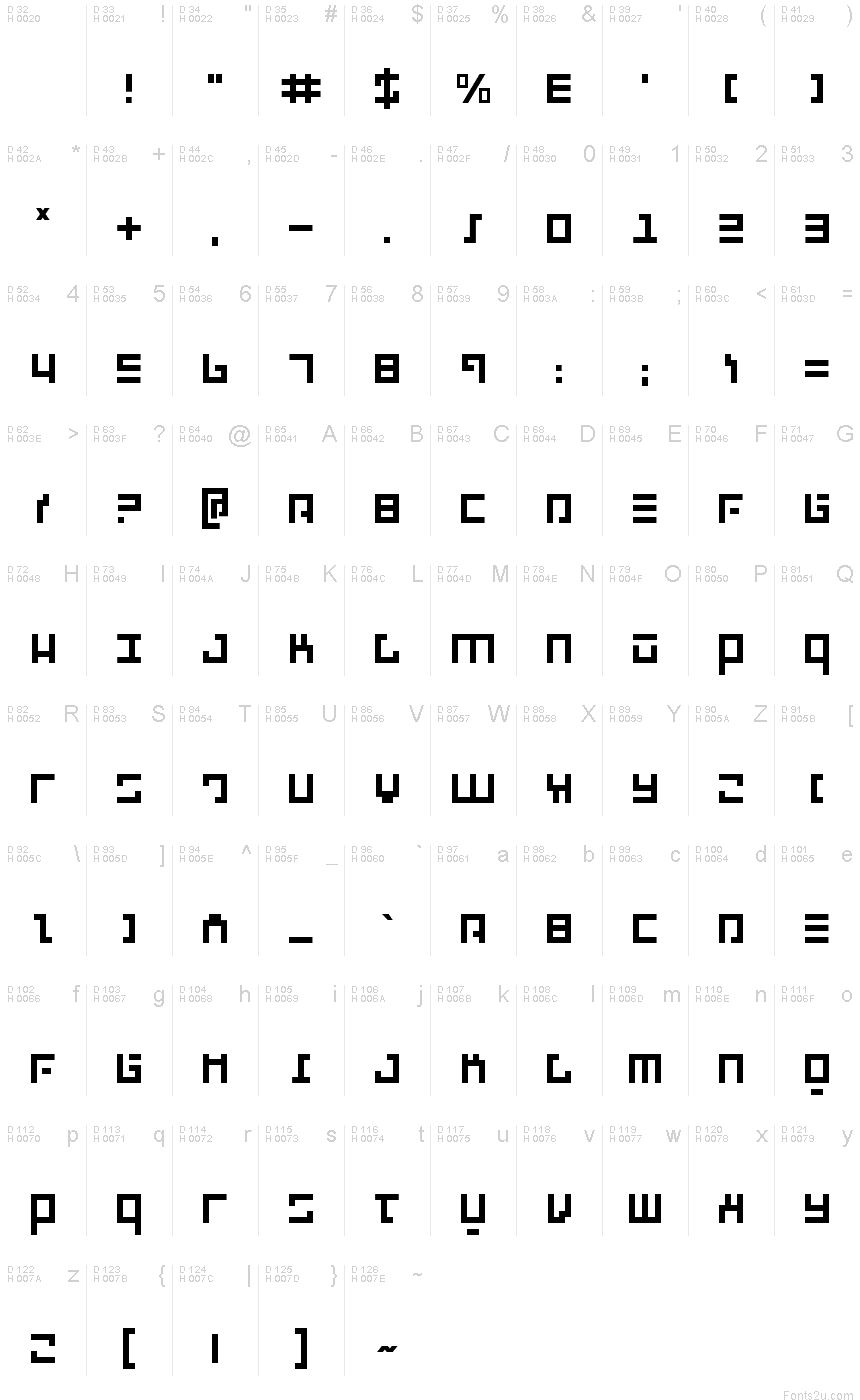
Repulsor by Iconian Fonts is a free techno display font with an imposing, machine-cut silhouette and stark rectangular geometry. Its uneven widths make the lettering feel deliberately engineered.
Digital graphics are its strongest setting, particularly game interfaces and science-fiction title cards, where the slotted forms and squared openings resemble control-panel markings, warning labels, and futuristic architecture. That same severe construction can shape electronic-music posters, technology packaging, and event signage, so the lettering becomes part of a fictional machine system for games, concerts, and entertainment brands rather than an ordinary label.